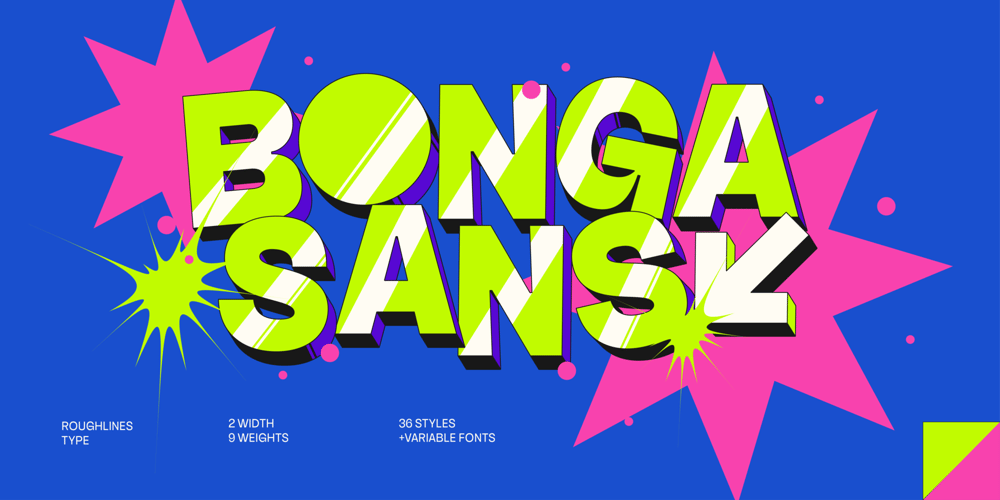
Bonga Sans Font Family was designed by Wantara Putra and published by Roughlines ID. Bonga Sans contains 36 styles and family package options. Meet Bonga Sans, a great choice for those seeking a font that stands out with its groovy, retro, and disco vibes. Perfectly designed for posters, editorials, websites, logos, branding, digital media visuals, text animations, and motion graphics, this typeface brings a funky and maximalist touch to your projects.Bonga Sans is a grotesque, sans-serif typeface that comes in both upright and oblique styles. With weights ranging from thin to black and widths from normal to extended, this versatile font offers 36 styles to fit any creative need.What sets Bonga Sans apart is its ability to seamlessly blend retro and modern aesthetics. It’s funky and groovy, making it ideal for text animations, motion graphics, and digital media visuals. Transform your projects with the dynamic and stylish Bonga Sans. Whether you’re aiming for a funky poster, a quirky editorial, or a groovy website, Bonga Sans is your ultimate typeface for adding that maximalist touch. Download Bonga Sans today and let your creativity groove!